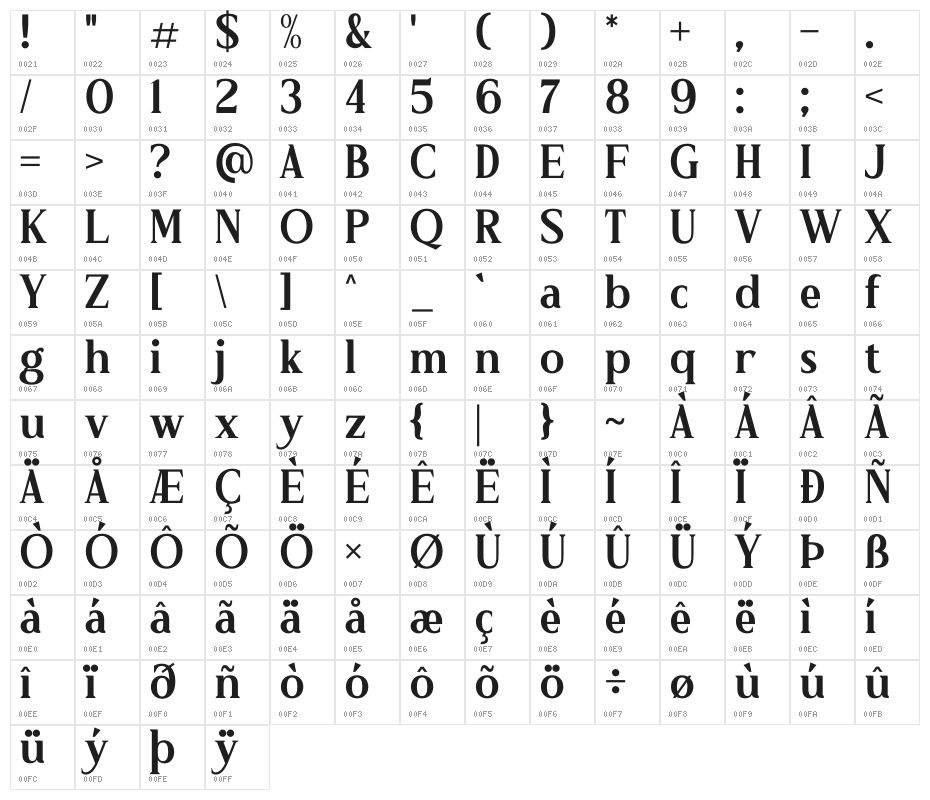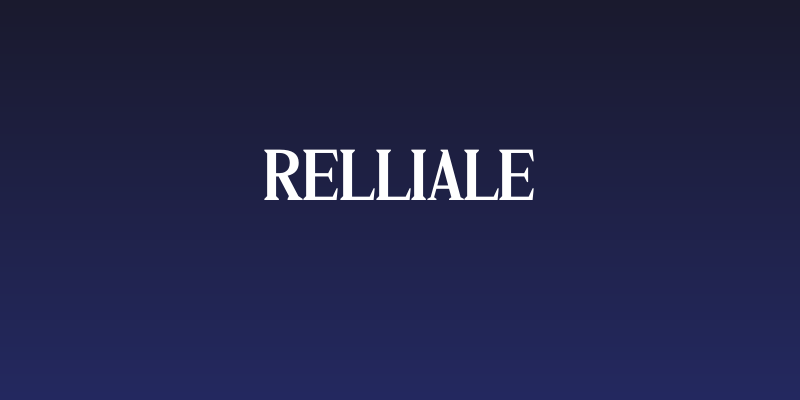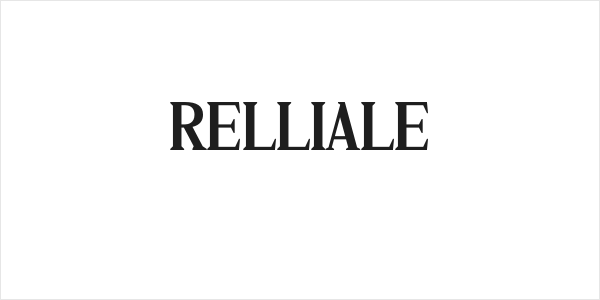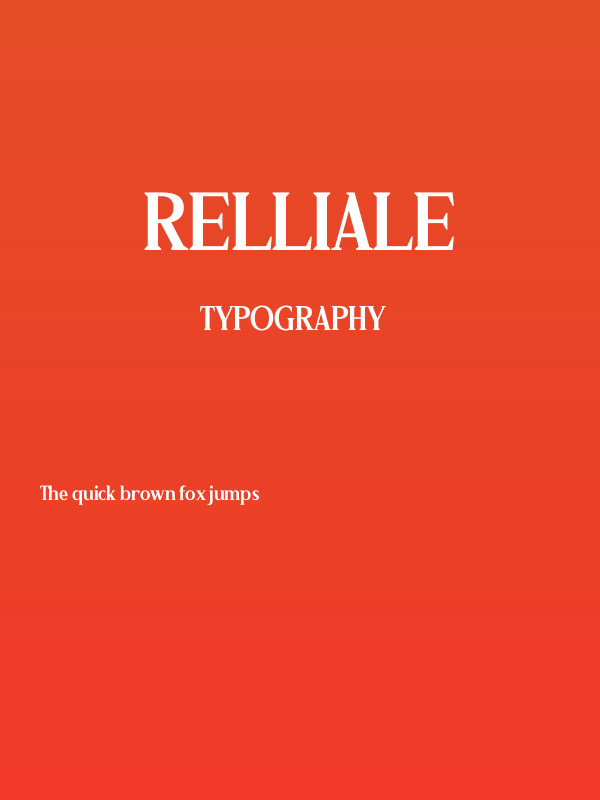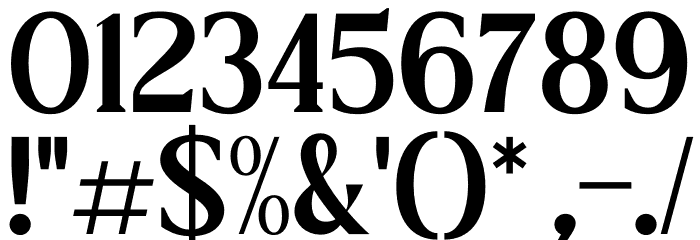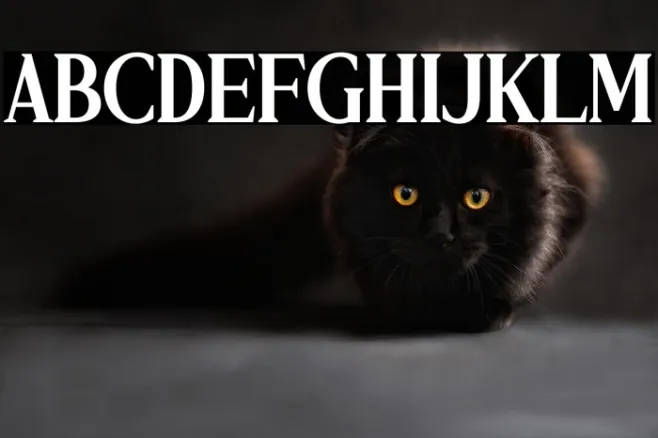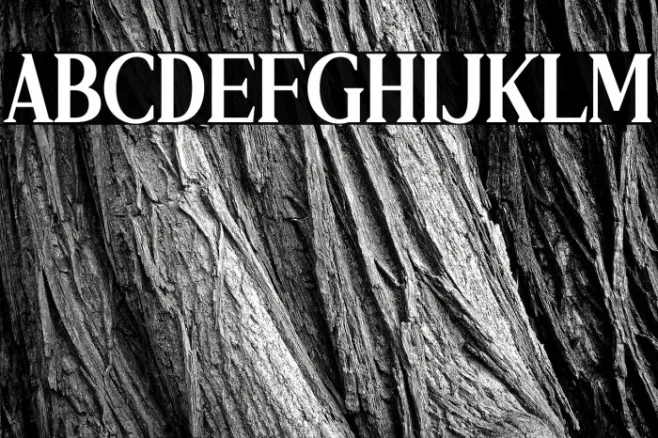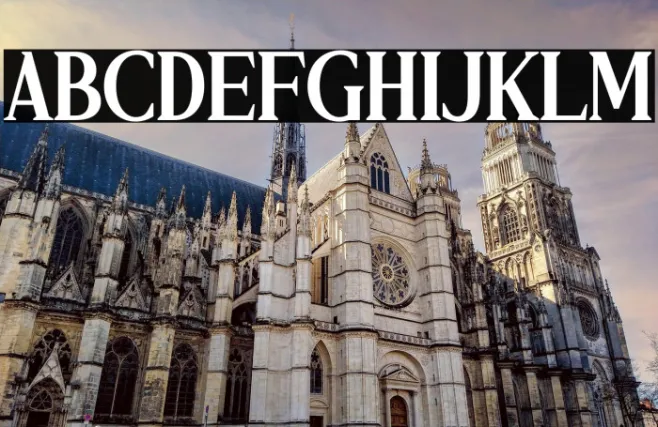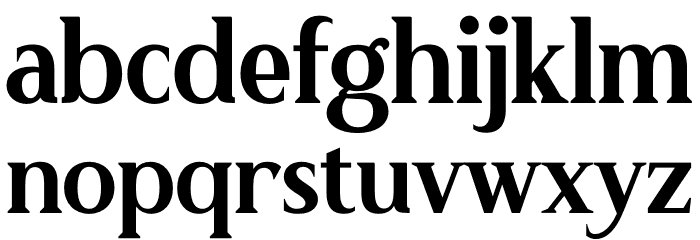
RELLIALE Font
RELLIALE Description
This font features a classic serif style with strong, elegant lines and high contrast between thick and thin strokes. The uppercase letters are bold and commanding, while the lowercase letters maintain a refined and sophisticated appearance. The numerals are clear and well-proportioned, making them highly legible. Special characters are designed with the same attention to detail, ensuring consistency across all glyphs. The overall design exudes a timeless elegance, suitable for a variety of formal and professional applications.
| Proposed Projects | Ideal for book covers, editorial design, formal invitations, and branding projects that require a touch of sophistication. |